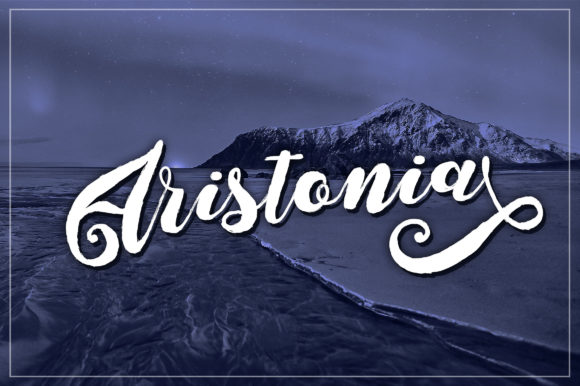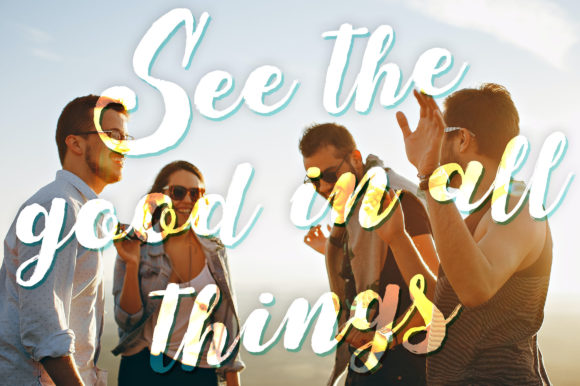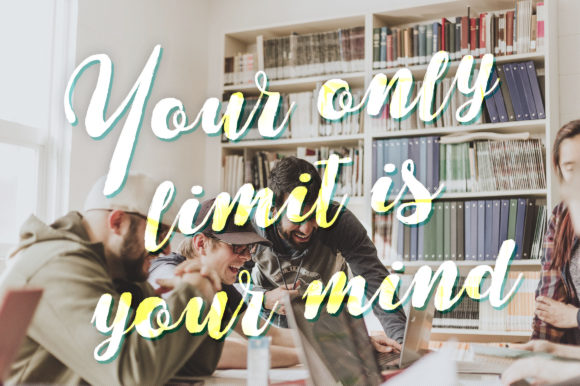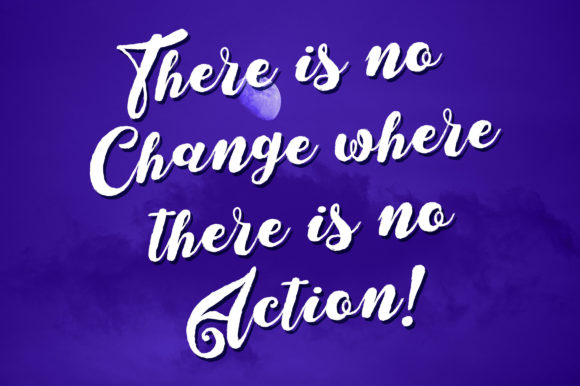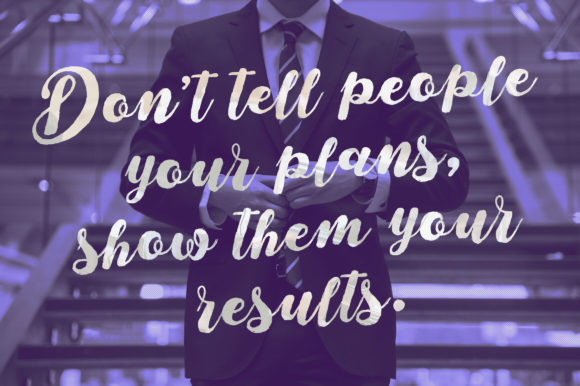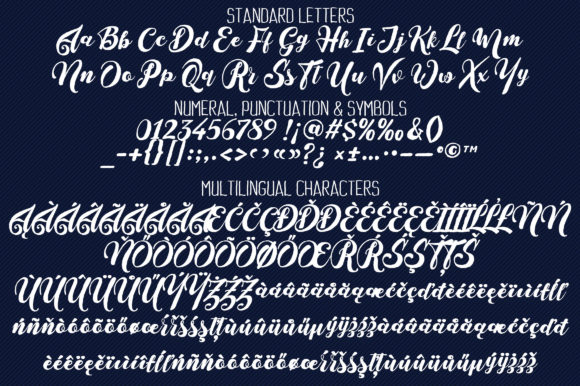
Aristonia Font
About Aristonia Font
Aristonia is a magical handwritten font carefully created with a touch of elegance. This is a beautiful combination of timeless elegance and authentic calligraphy. It features an incredibly classic style, while still keeping a friendly feel. Fall in love with its authentic feel and use it to create gorgeous wedding invitations, beautiful stationary art, eye-catching social media posts, and cute greeting cards.